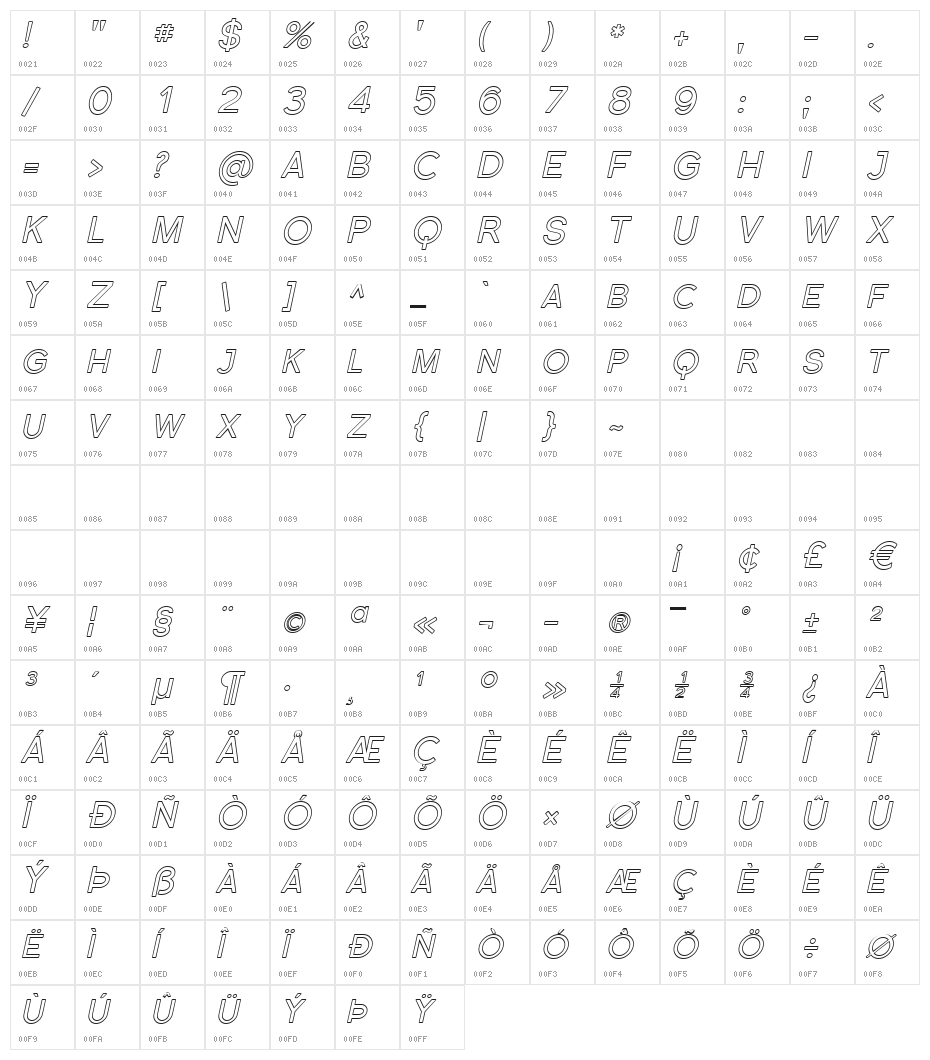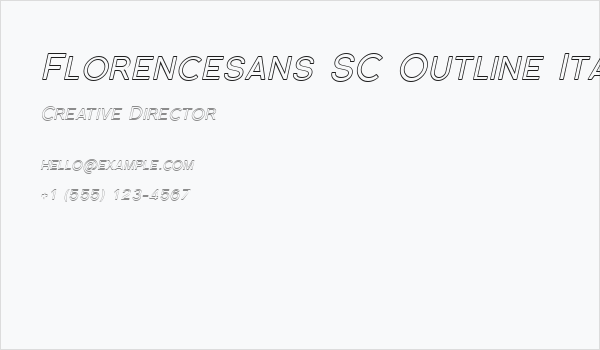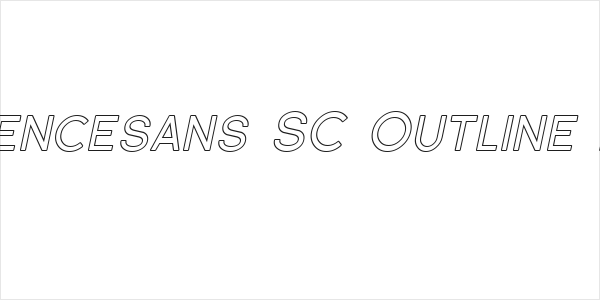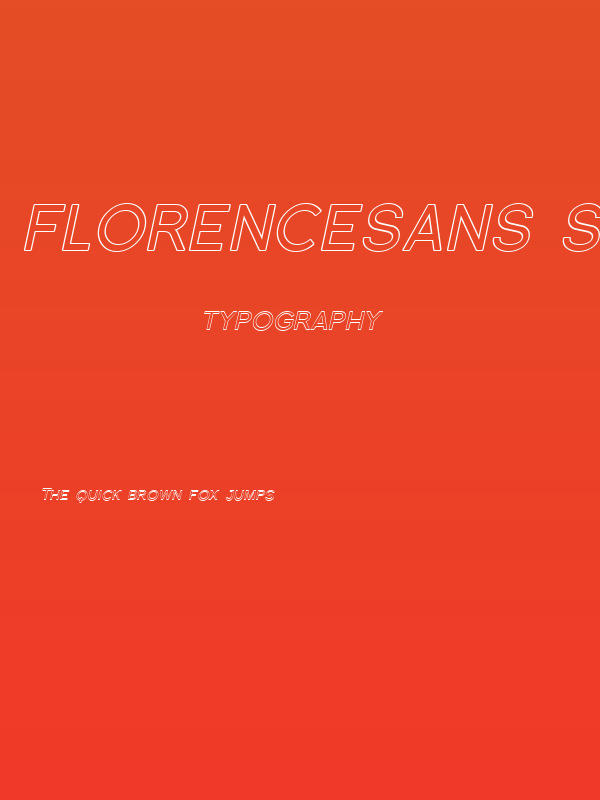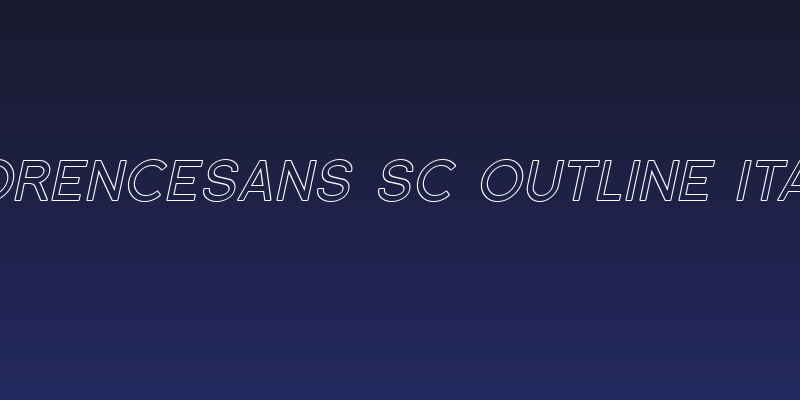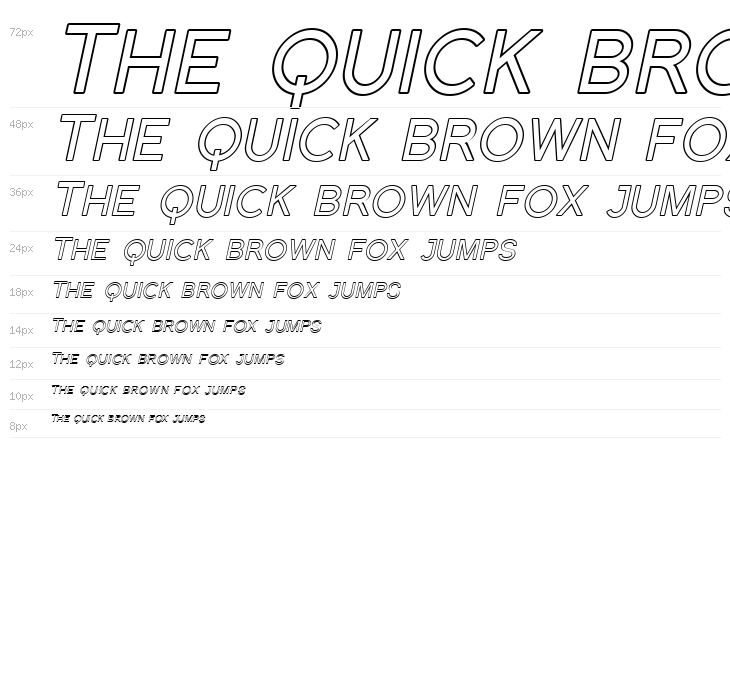
Florencesans SC Outline Italic Font
Florencesans SC Outline Italic Description
This font features a clean, modern sans-serif style with an outline design that adds a unique, airy quality to the characters. The italic slant gives it a dynamic and forward-moving appearance, making it suitable for contemporary and creative projects. The uppercase and lowercase letters maintain a consistent geometric form, while the numerals and special characters are designed to match the overall aesthetic. The outline effect provides a sense of openness and lightness, making it ideal for designs that require a touch of elegance and modernity.
| Proposed Projects | Ideal for branding, headlines, posters, and digital media where a modern and creative look is desired. |